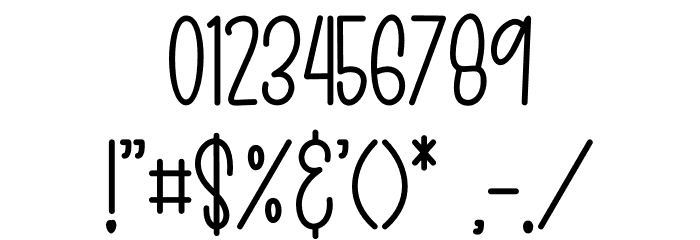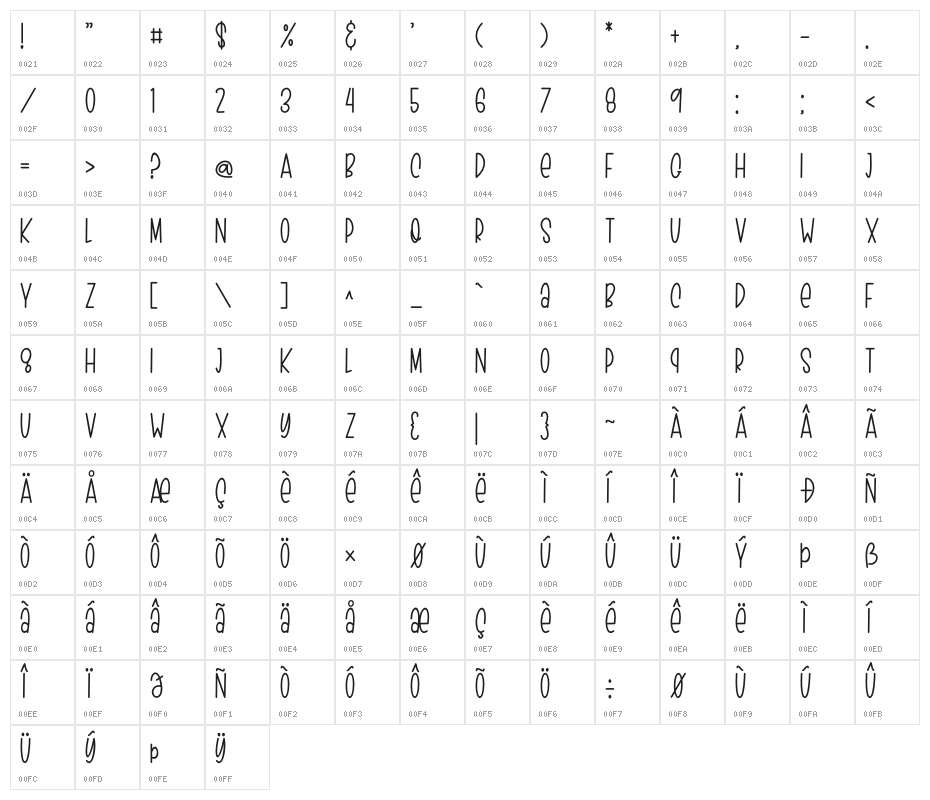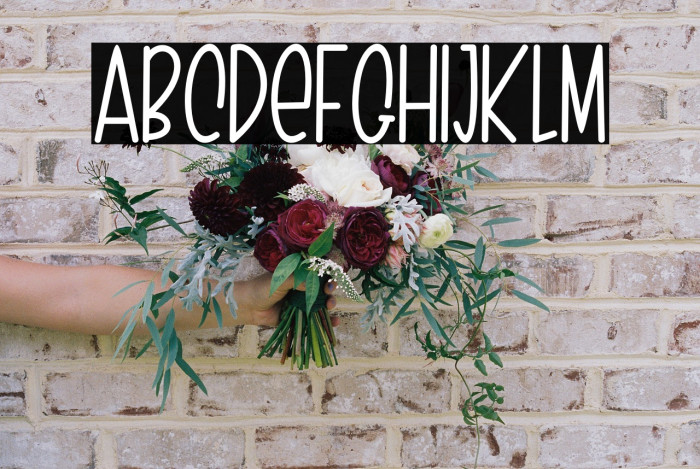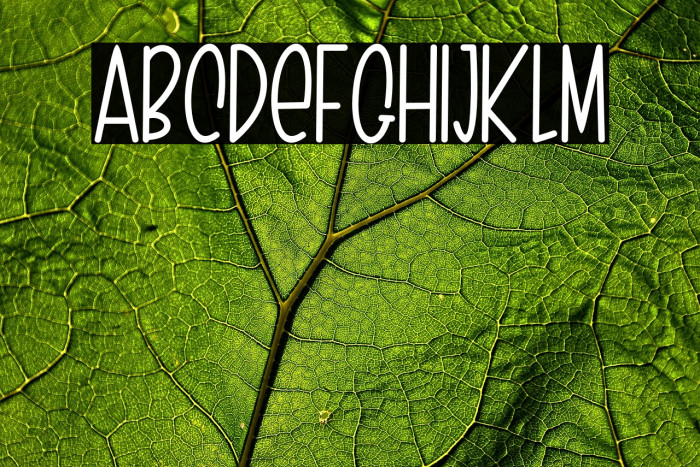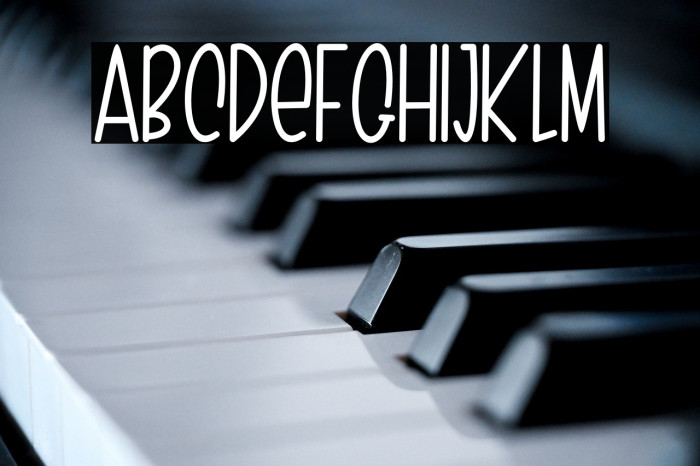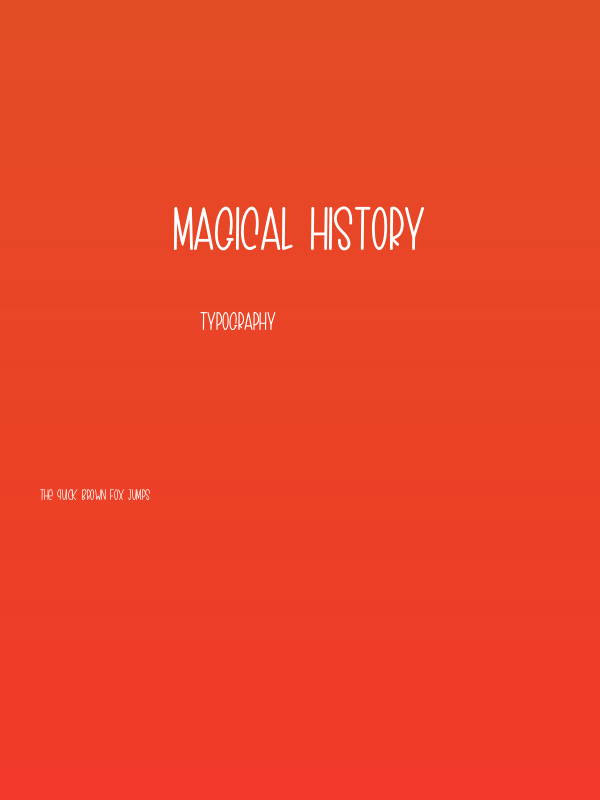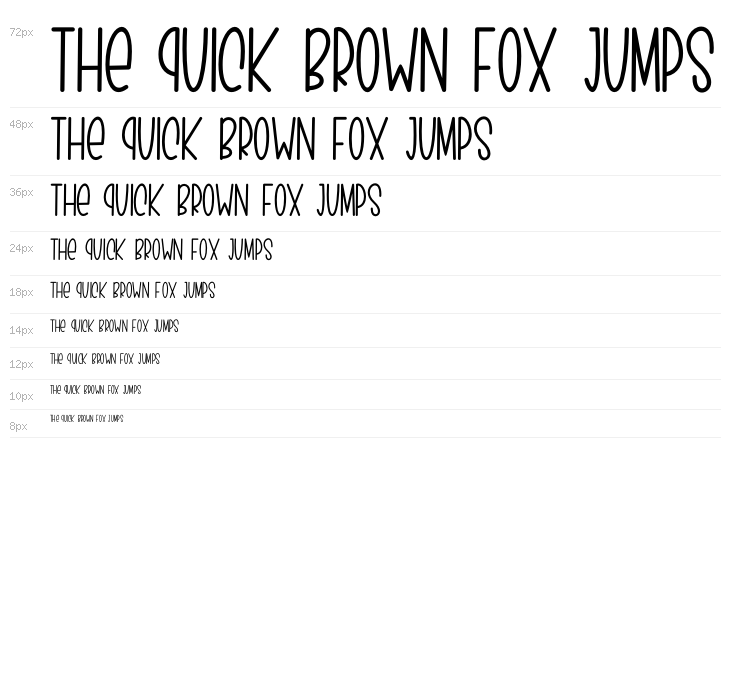
Magical History Font
Magical History Description
This font features a playful and whimsical style with tall, narrow letters that have a hand-drawn feel. The characters are slightly irregular, adding to the charm and uniqueness of the design. The uppercase and lowercase letters maintain a consistent height, contributing to a cohesive look. The numbers and special characters are designed to match the overall aesthetic, making the font versatile for various uses. Its informal and friendly appearance makes it suitable for creative projects that require a touch of personality.
| Proposed Projects | Ideal for children's books, greeting cards, playful branding, and creative posters. |